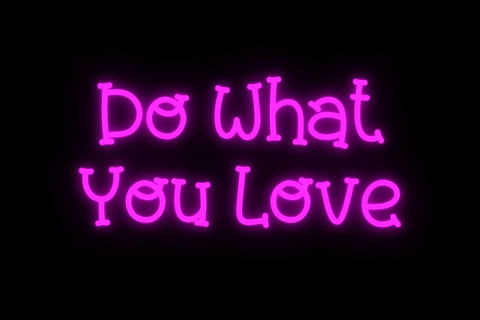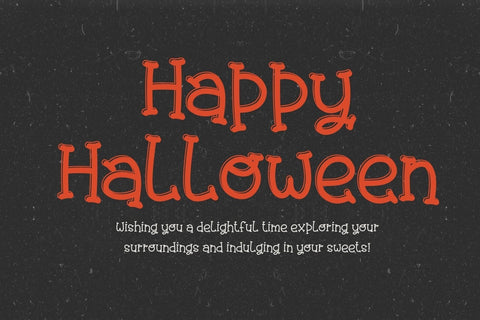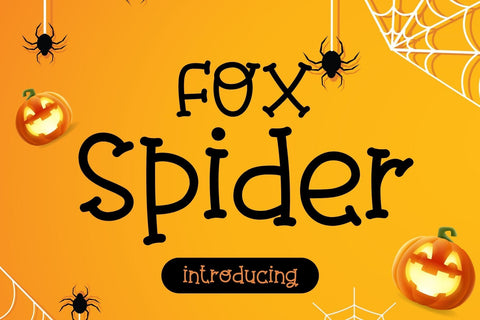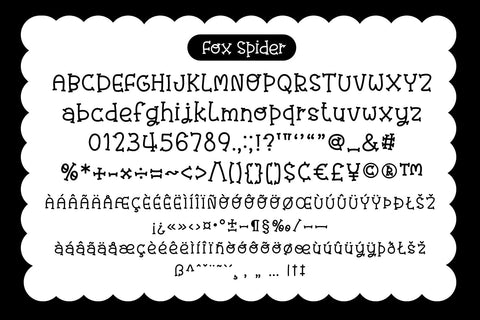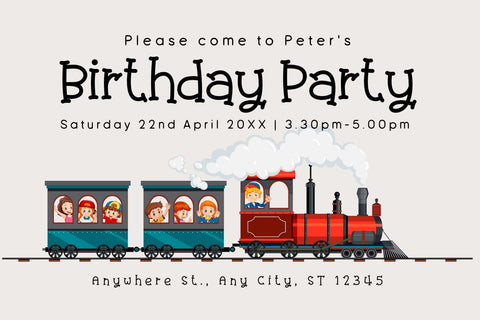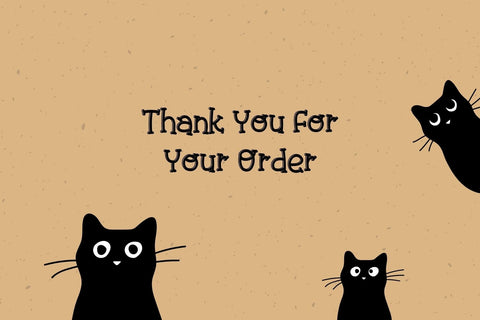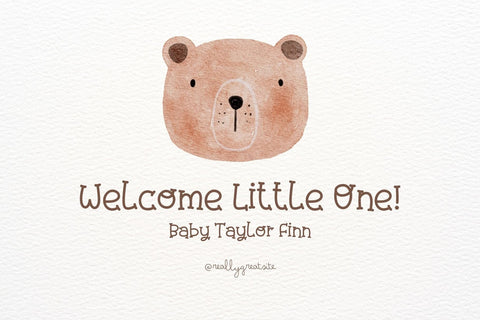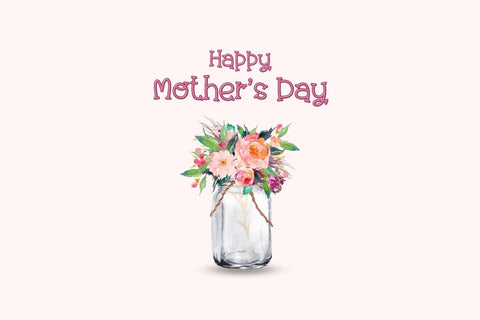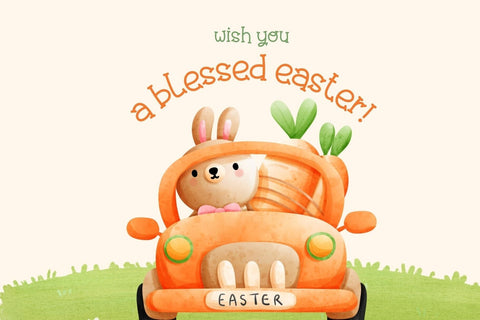
Fox Spider Font
Fox Spider is a cool, fun, and easy-to-read Handwriting font. No matter the topic, this font will be an incredible asset to your fonts’ library, as it has the potential to elevate any creation. Its cheerful vibe is suitable for kid-friendly designs, posters, wall art, stickers, Halloween, or festival valentines, Mother’s Day, and more!